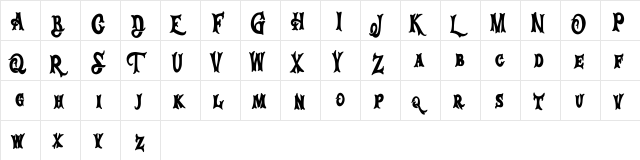
Emogine FREE Regular
Design Context for Emogine FREE Typeface
Emogine FREE is a composed and adaptable typeface that performs quietly and consistently across a wide range of design contexts.